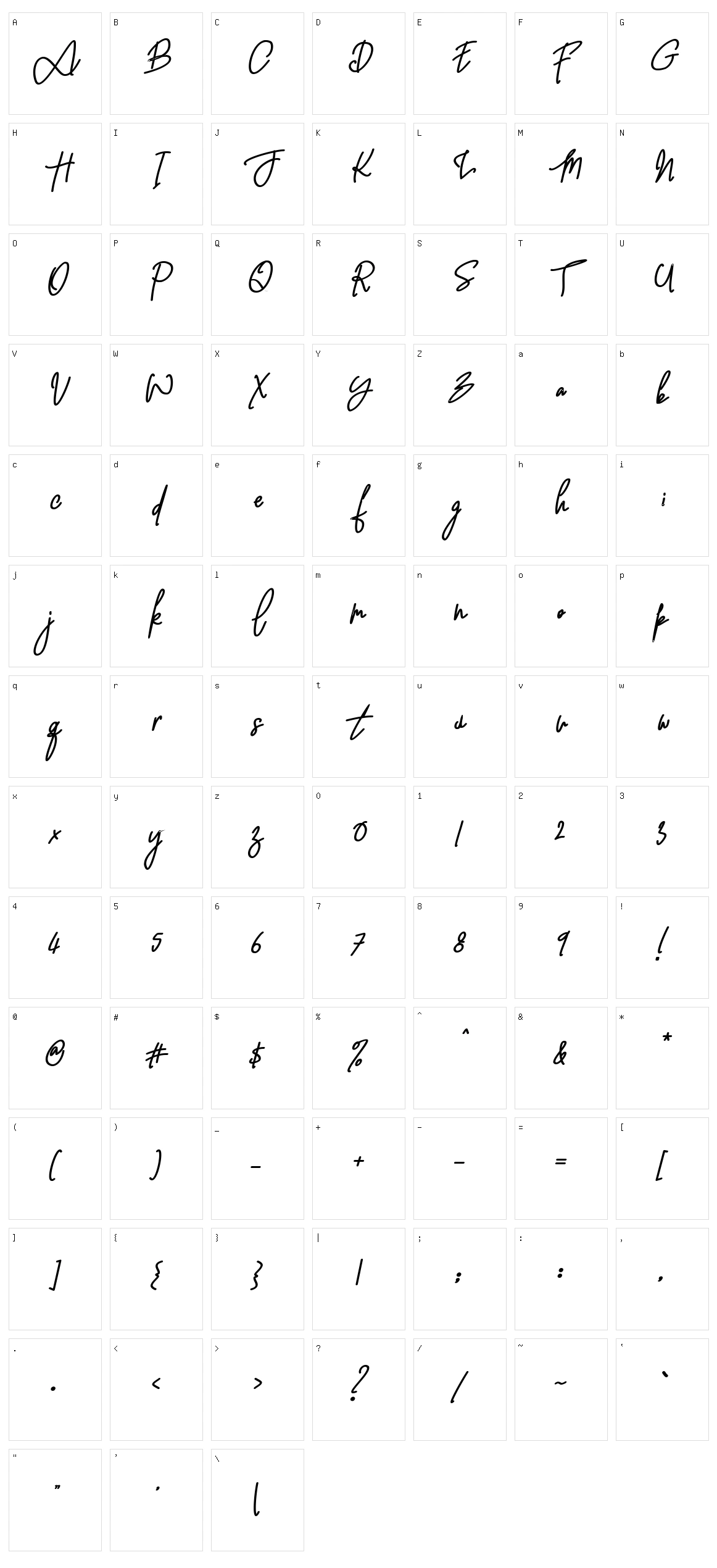
The free font Witherscollin is carefully designed by Letterara, showcasing a thoughtful balance of creativity and usability and falls under the Script font style. When you download the ZIP file, it contains only 131.69 KB of font files, making it lightweight and quick to download. Please review the license details below to understand permitted usage and distribution rights. If license information is not available, we recommend using this font for personal projects only or contacting the author directly for commercial usage permissions.